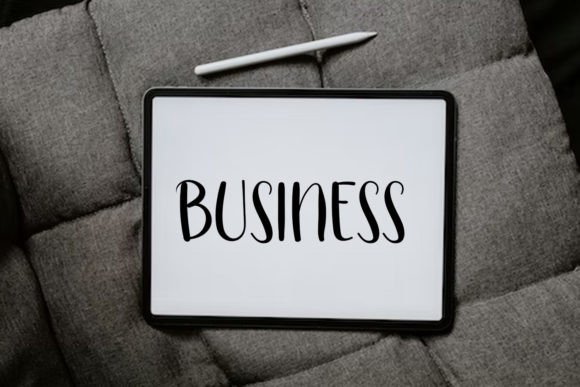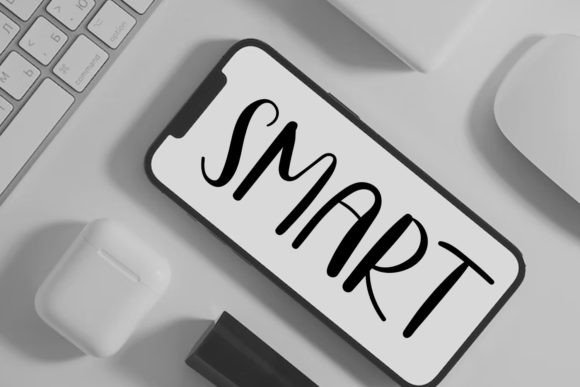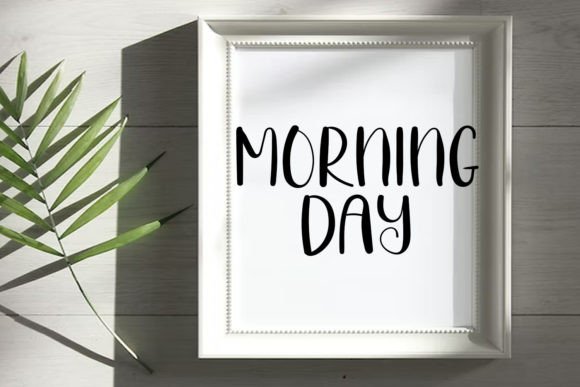
Get Ready to Fall in Love with the Boho Font
Do you remember that moment when you stumbled upon the perfect font, and it instantly inspired your next creative project? For designers, that moment can be a game-changer. It’s the spark that ignites your imagination and sets your work apart. For me, that moment came when I discovered the Boho Font – a fresh and cool handwritten font that has been making waves in the design world.
The Boho Font is more than just a pretty face; it’s a versatile tool that can elevate your projects to new heights. Whether you’re working on a branding project, a social media campaign, or a blog post, this font is sure to bring a touch of whimsy and sophistication to your design. As a designer, you know how valuable it is to have a reliable font that can help you convey your message and connect with your audience.
Key Features of Boho Font
- Font Family: Boho Font comes in two font families, Regular and Bold, to provide a wide range of design options.
- Character Count: Boho Font contains over 200 characters, including uppercase and lowercase letters, numbers, and punctuation marks.
- Unique Characteristics: Boho Font features a unique, hand-drawn style with intricate details and subtle imperfections, giving it a distinctive and artistic look.
Boho Font Review
I recently had the chance to work with Boho Font, and I have to say it’s a unique addition to any design project. Here’s my honest review.
- Whimsical feel: Boho Font’s eclectic style adds a touch of bohemian charm to any design.
- Variety of fonts: The font family includes several styles and weights, making it easy to find the perfect match for your project.
- Easy to read: Despite its unique style, Boho Font remains easy to read, even at smaller font sizes.
- Not suitable for formal projects: Boho Font’s playful style may not be the best choice for formal or professional designs.
- Limited language support: Boho Font may not include all the languages you need for your project.
- May require adjustments: Some users may need to adjust the font settings to achieve the desired look.
Boho Font is a great addition to any designer’s toolkit, offering a unique and playful style that’s perfect for creative projects. While it may have some limitations, the benefits far outweigh the drawbacks. With a little experimentation, you can achieve some truly stunning designs with Boho Font.
Boho Font: A Practical Application Guide
To use Boho Font in Canva, start by creating a new design or project. Select the “Text” element and choose the Boho Font from the font library. You can adjust the font size, color, and style to fit your design needs. For a more authentic look, pair the Boho Font with distressed textures and earthy colors.
In Adobe Photoshop or Illustrator, you can use the Boho Font by selecting the “Type” tool and choosing the font from the font library. You can adjust the font size, color, and style using the control panel. To add a vintage touch, use the “Distort” or “Perspective” tools to manipulate the text.
To use Boho Font in PowerPoint or Word, select the text and choose the font from the font library. You can adjust the font size and color to fit your design needs. To add a bohemian touch, use the “Text Effects” or “Shadow” options to create a distressed look.
Getting the Most Out of Boho Font
To get the most out of Boho Font, experiment with different font sizes, colors, and styles to create a unique look. Pair the font with distressed textures, earthy colors, and vintage patterns to add a bohemian touch.
Boho Font is ideal for:
– Travel and adventure branding
– Fashion and lifestyle marketing
– Art and craft projects
Alternatives to Boho Font for Designers
Great Vibes is a beautiful, hand-drawn script font that evokes a sense of elegance and sophistication. It’s perfect for use in wedding invitations, greeting cards, and other special occasion designs where a touch of whimsy is needed.
Compared to Boho Font, Great Vibes has a more refined and polished feel, making it suitable for a wider range of design applications. While Boho Font is more playful and eclectic, Great Vibes is more refined and sophisticated.
Carolyna Pro is a modern, elegant script font that’s perfect for use in high-end branding, packaging, and advertising designs. It features a unique, flowing style that’s both feminine and sophisticated.
What is the recommended font size and line height for the Boho Font?
The recommended font size for the Boho Font is between 12-24 points, depending on the desired level of legibility and visual impact. For body text, a line height of 1.2-1.5 times the font size is recommended. For headings and titles, a line height of 1.5-2 times the font size is recommended.